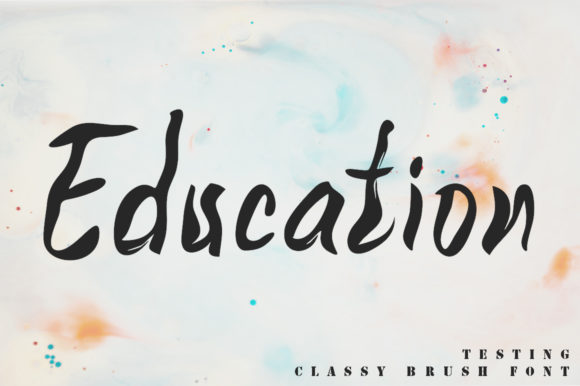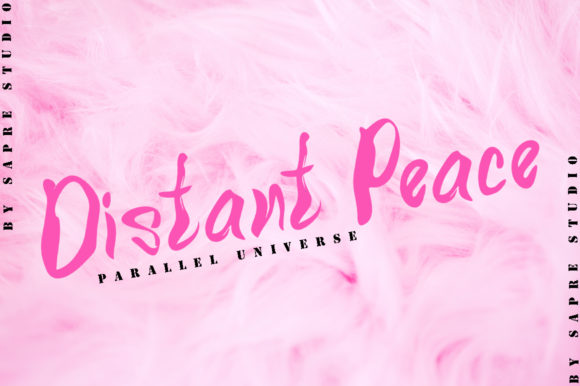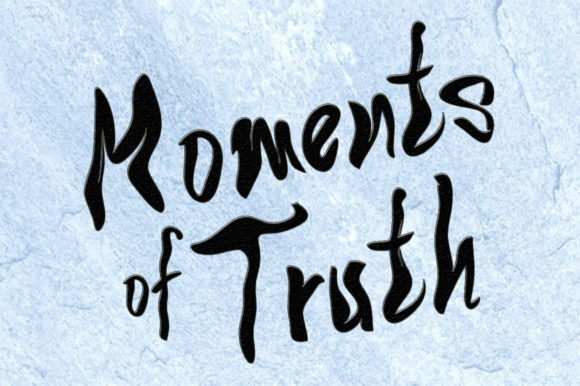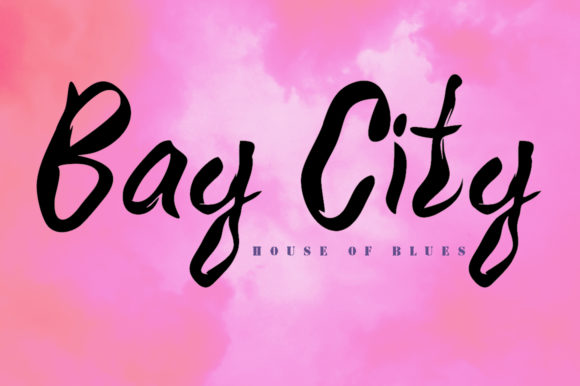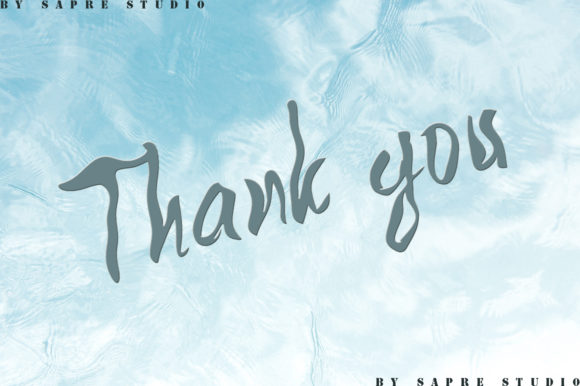
Introducing Central Font: The Cute Handmade Pen Marker Script
Are you looking for a font that adds a personal touch to your designs? Look no further than Central Font, a charming handmade pen marker script that’s perfect for crafters and designers alike. With its casual feel and ease of use, Central Font is sure to inspire your creativity.
What is Central Font?
Central Font is a unique, hand-crafted font designed to mimic the look and feel of pen marker scripts. Its creator aimed to capture the imperfections and quirks of handwritten text, making it perfect for adding a personal touch to your designs. Whether you’re working on a DIY project, a branding campaign, or simply want to add some flair to your digital content, Central Font is an excellent choice.
Key Features of Central Font
- Cute and Casual: Central Font boasts a playful, laid-back vibe that’s perfect for designs that require a friendly, approachable feel.
- Handmade: Each letterform is carefully crafted to resemble the imperfections of handwriting, giving your text a unique, one-of-a-kind look.
- Easily Applied: Central Font is designed to be user-friendly, making it easy to integrate into your designs, even for those without extensive design experience.
- Marker Script: The font’s marker script style gives it a distinctive, hand-drawn feel that’s perfect for adding a creative touch to your work.
Who Can Benefit from Central Font?
Central Font is an excellent addition to any designer’s or crafter’s toolkit. Here are a few examples of professionals who can benefit from this charming font:
- Graphic Designers: Add a personal touch to your branding campaigns, social media graphics, and marketing materials with Central Font’s unique, handmade style.
- Crafters: Use Central Font to add a decorative element to your DIY projects, such as handmade cards, gift tags, and scrapbooking pages.
- Digital Content Creators: Bring a touch of personality to your blog posts, social media updates, and email newsletters with Central Font’s casual, friendly vibe.
Tips for Using Central Font Effectively
To get the most out of Central Font, consider the following tips:
- Pair with Other Fonts: Combine Central Font with other fonts to create visual interest and add depth to your designs.
- Experiment with Colors: Central Font looks great in a variety of colors, so don’t be afraid to try out different hues and combinations.
- Use it Sparingly: While Central Font is a beautiful font, it can be overwhelming if overused. Use it sparingly to add emphasis and create visual hierarchy.
| Font Name | Central Font |
| Author | sapre.studio |
Central Font is a charming, handmade pen marker script that’s perfect for designers and crafters looking to add a personal touch to their work. With its casual feel, ease of use, and unique character, Central Font is sure to inspire your creativity and take your designs to the next level. So why not give it a try and see how Central Font can elevate your designs?
Get Inspired with Central Font